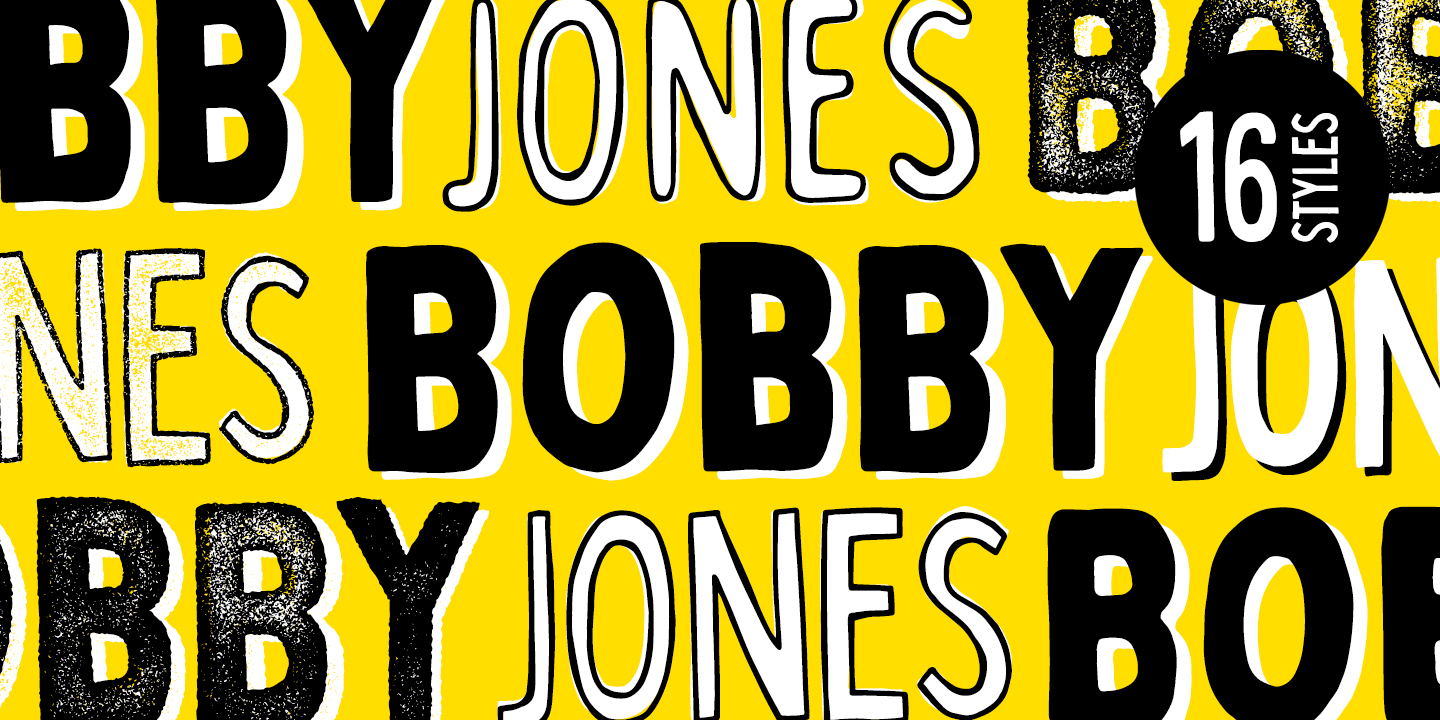
Bobby Jones Font Free Download is a distinctive and often classic typeface, perfect for designs that aim to evoke a sense of Americana, sports heritage, or a timeless, athletic elegance. Imagine it gracing unique golf club branding, sophisticated sports apparel, vintage-inspired event invitations for tournaments, or charming country club stationery. Its clean, often slightly condensed character, reminiscent of traditional sports typography, also makes it an excellent choice for historical athletic wear designs, distinctive trophy engravings, and any project that benefits from a touch of refined, enduring sportsmanship. Whether your goal is to impart a sense of tradition, a gentlemanly charm, or a classic American spirit, Bobby Jones Font offers the stylistic clarity and heritage to elevate your creative vision.
What makes Bobby Jones Font truly exciting is its ability to blend a timeless sporting aesthetic with versatile readability. It often features well-proportioned letterforms and a dignified structure that ensures excellent legibility across various applications, from large banners to smaller details. This isn't just another display font; it's a meticulously crafted typeface that brings a unique blend of historical inspiration and robust functionality to any text. Designers appreciate its strong visual appeal and how it can instantly bring a cohesive and refined look to any project, making it a reliable choice for designs that demand both aesthetic quality and a nod to classic athletic prestige.
The Bobby Jones Font family is typically designed to offer a practical range of styles, ensuring versatility across different design needs. You can generally expect a Regular weight that forms the core of its aesthetic, embodying its characteristic blend of form and grace. Often, additional weights like Bold for greater impact, or perhaps Light for a more subtle touch, might be included. Some families might also offer unique stylistic alternatives or ligatures that enhance its decorative potential and provide more refined options, especially useful for custom branding. This thoughtful range ensures that Bobby Jones Font Free Download can be effectively utilized for both prominent headlines where its unique elegance can shine and for supporting text where its refined clarity is key.